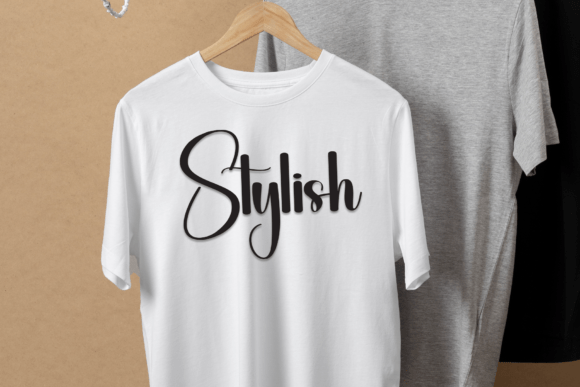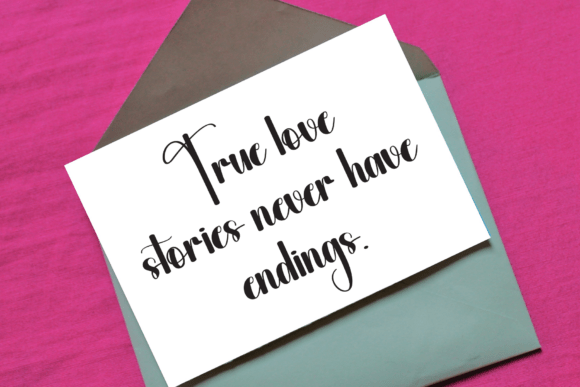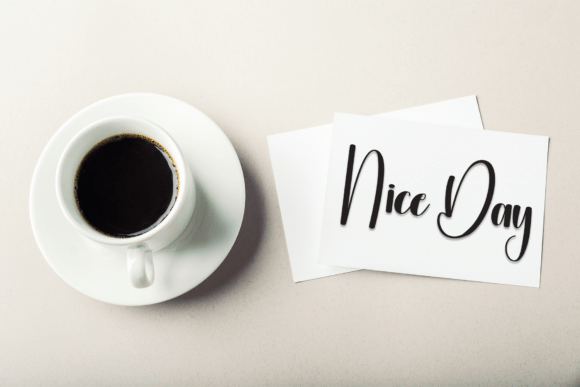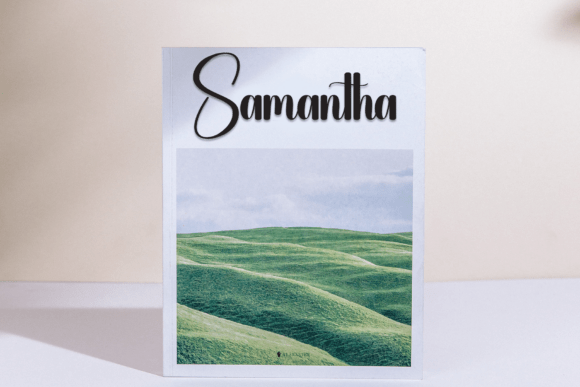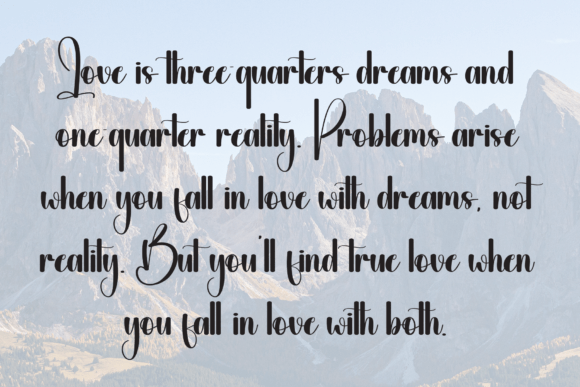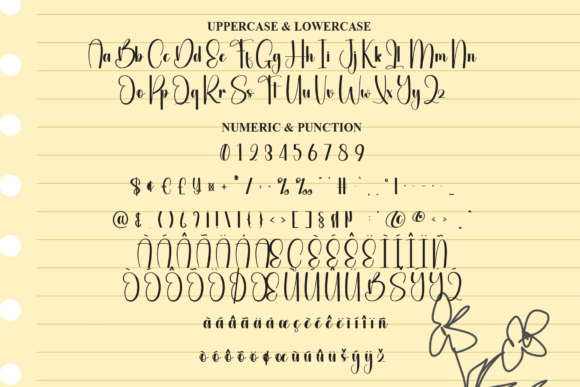
The Beauty of Handwritten Fonts: Elevating Design with a Personal Touch
In the world of typography, handwritten fonts have always held a special place for their unique, personal, and artistic appeal. Among these, the “Handwritten” font stands out for its sleek, rhythmic design that captures the essence of hand-penned elegance. This article delves into the characteristics, uses, and benefits of the Handwritten font, making it a valuable resource for designers, crafters, and anyone looking to add a touch of sophistication to their projects.
What is Handwritten Font?
Handwritten is a sleek and rhythmic display font that offers a graceful, hand-penned aesthetic. This simple, handmade font features vertically elongated letterforms rendered with a fine, monolinear stroke weight and smooth character joins. The design is defined by an organized visual flow and sweeping terminal flourishes that provide a sense of customized, professional artistry.
Key Features of Handwritten Font
- Vertically Elongated Letterforms: The font’s letterforms are stretched vertically, giving them a tall and elegant appearance that is perfect for headlines and titles.
- Fine, Monolinear Stroke Weight: The consistent and fine stroke weight gives the font a sleek and modern look, making it versatile for various design applications.
- Smooth Character Joins: The smooth connections between characters enhance the font’s readability and aesthetic appeal, creating a seamless flow.
- Sweeping Terminal Flourishes: The elegant flourishes at the ends of the letters add a touch of sophistication and artistry, making the font suitable for high-end designs.
Uses of Handwritten Font
The Handwritten font is incredibly versatile and can be used in a variety of design projects, including:
- Boutique Brand Identities: The font’s elegant and sophisticated look makes it perfect for branding and packaging designs for luxury boutiques and high-end products.
- Personal Signature Watermarks: The personal and artistic feel of the font makes it ideal for creating signature watermarks that add a touch of elegance to personal projects.
- Elegant Editorial Headers: The font’s rhythmic and graceful design makes it suitable for use in editorial design, such as magazine headers, article titles, and book covers.
- Sophisticated Digital Interface Titles: The font’s sleek and modern look also makes it suitable for digital interfaces, including website headers, app titles, and digital advertising.
Benefits of Using Handwritten Font
Using the Handwritten font in your design projects offers several benefits:
- Unique Aesthetic: The font’s hand-penned aesthetic sets it apart from more traditional and generic fonts, giving your designs a unique and personalized look.
- Versatility: The font’s sleek and modern design makes it versatile for use in various design applications, from print to digital.
- Elegance and Sophistication: The font’s elegant and sophisticated look makes it perfect for high-end designs and projects that require a touch of luxury.
- Readability: The font’s fine stroke weight and smooth character joins enhance its readability, making it suitable for use in both headings and body text.
Tips for Using Handwritten Font Effectively
To get the most out of the Handwritten font, consider the following tips:
- Use it for Headings: The font’s elegant and sophisticated look makes it perfect for headings and titles. Use it to create visually appealing headers that draw attention.
- Pair it with Simple Fonts: Pair the Handwritten font with simpler fonts for body text to create a balanced and harmonious design.
- Experiment with Colors: The font’s sleek design works well with a variety of colors. Experiment with different colors to find the perfect match for your design.
- Pay Attention to Spacing: The font’s elegant look can be enhanced by adjusting the spacing between letters and lines. Pay attention to kerning and leading to create a visually appealing design.
The Handwritten font is a beautiful and versatile typeface that offers a unique, hand-penned aesthetic. Its sleek and rhythmic design makes it perfect for a variety of design applications, from boutique brand identities to sophisticated digital interface titles. By understanding its key features, uses, and benefits, designers and crafters can effectively incorporate the Handwritten font into their projects and create visually stunning designs that exude elegance and sophistication.